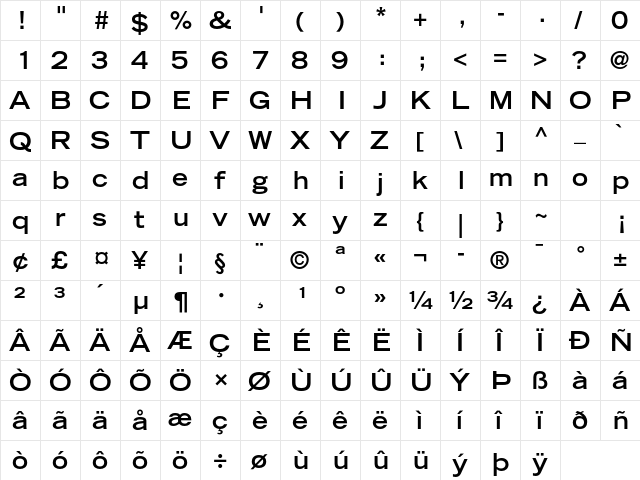
Trade Gothic LT Std Bold Extended
| Designer | Jackson Burke |
Design Context for Trade Gothic LT Std Typeface
Trade Gothic LT Std takes a clean, functional approach — its unadorned letterforms prioritise legibility and work reliably across screen and print environments. The heavy weight commands attention and anchors typographic hierarchies.
Well-suited to navigation labels, product packaging, and anywhere legibility at scale is essential.
Font Pairing: Use Trade Gothic LT Std for headlines alongside a lighter-weight sans or serif for body copy to establish clear visual hierarchy.
Pro Tip: Use Trade Gothic LT Std with generous tracking and line-height for the most luxurious effect — light sans-serifs reward spacious, considered layouts.